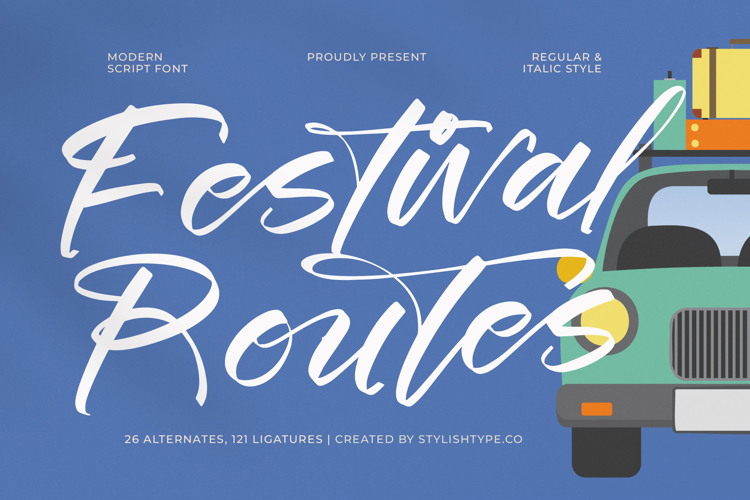
Festival Routes - Modern Script Font
Elevate your designs with an injection of raw, vibrant energy. Festival Routes - Modern Script Font is a captivating, high-contrast brush script designed for maximum impact and immediate visual recognition. Its sweeping baseline and spontaneous, yet refined, stroke variations perfectly capture the spirit of motion and excitement inherent in travel and high-energy events. This font delivers an unmistakable handmade texture, providing a powerful typographic focal point whether used in large headlines or prominent display pieces.